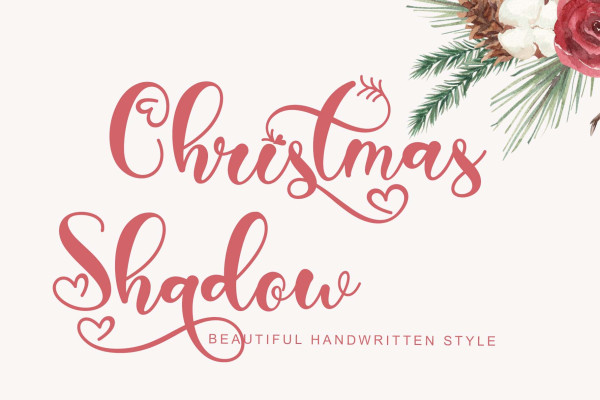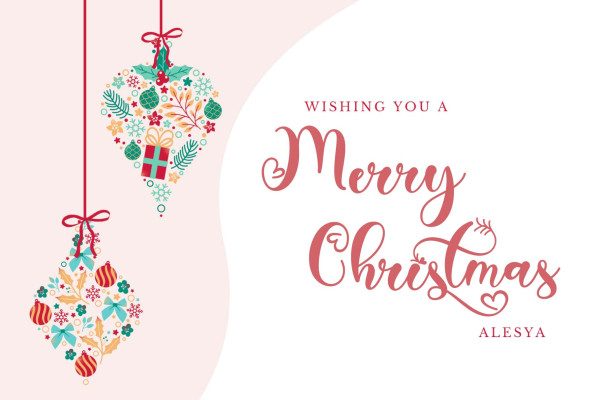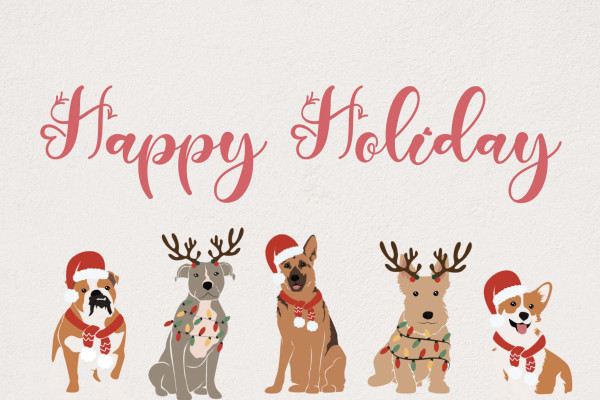
Christmas Shadow Font
Christmas Shadow Font is a beautiful handwritten font with a love shape. This font is equipped with uppercase, lowercase, numerals, punctuation, and multilingual support. It is suitable for weddings, engagements, invitations, back to school, autumn, Christmas, and others.